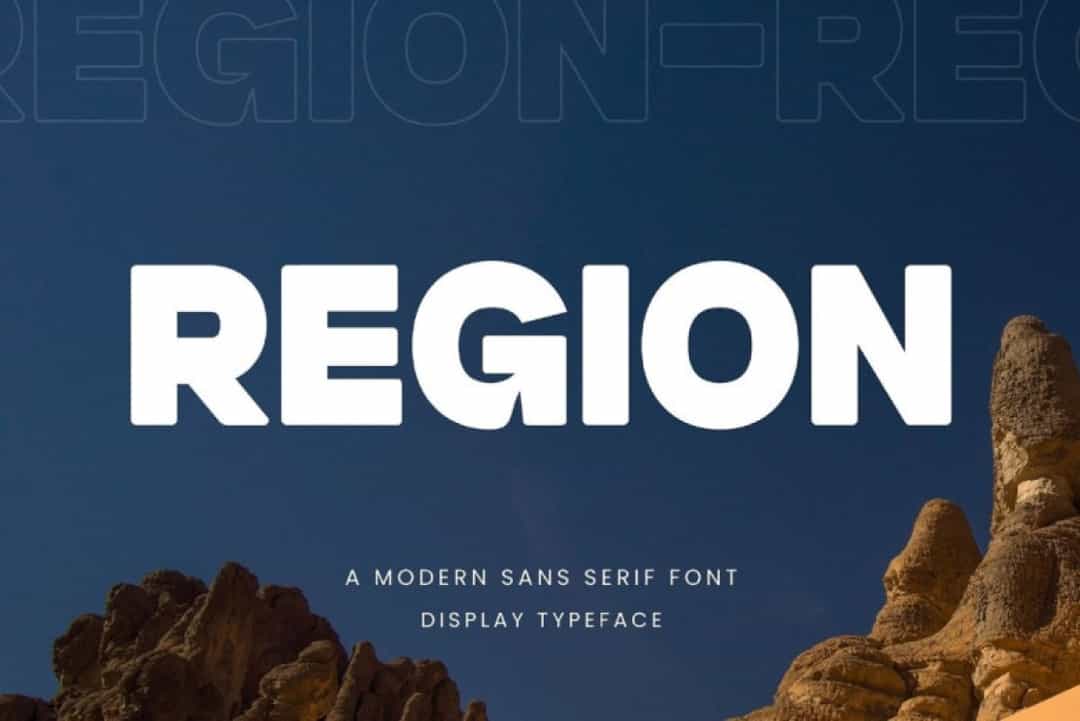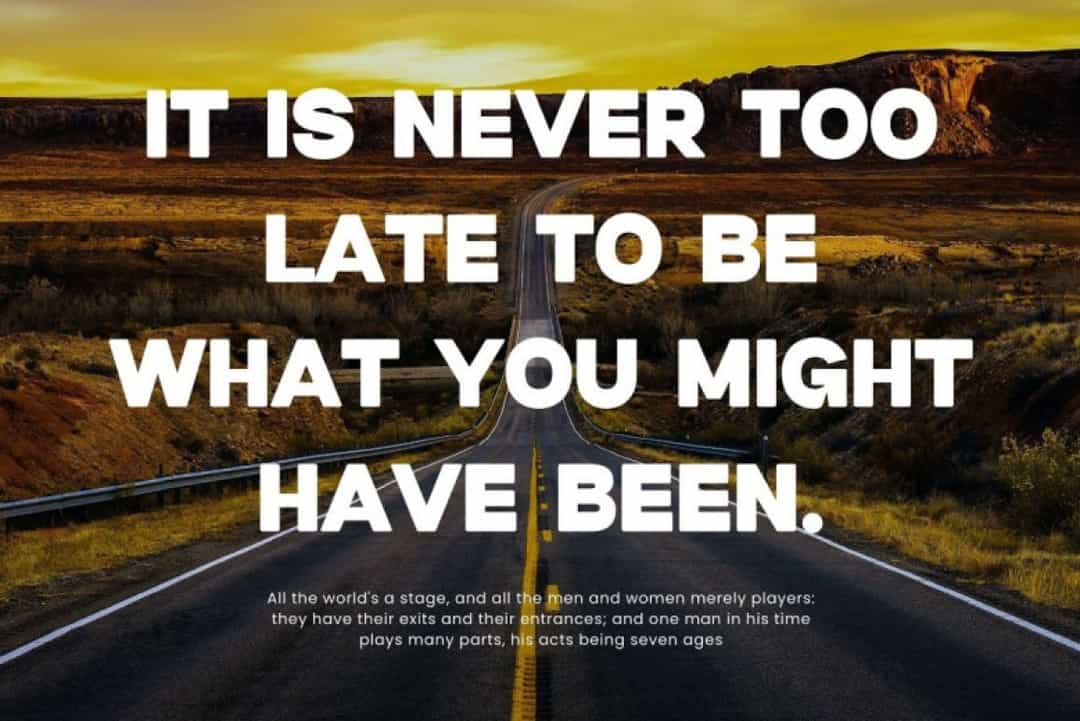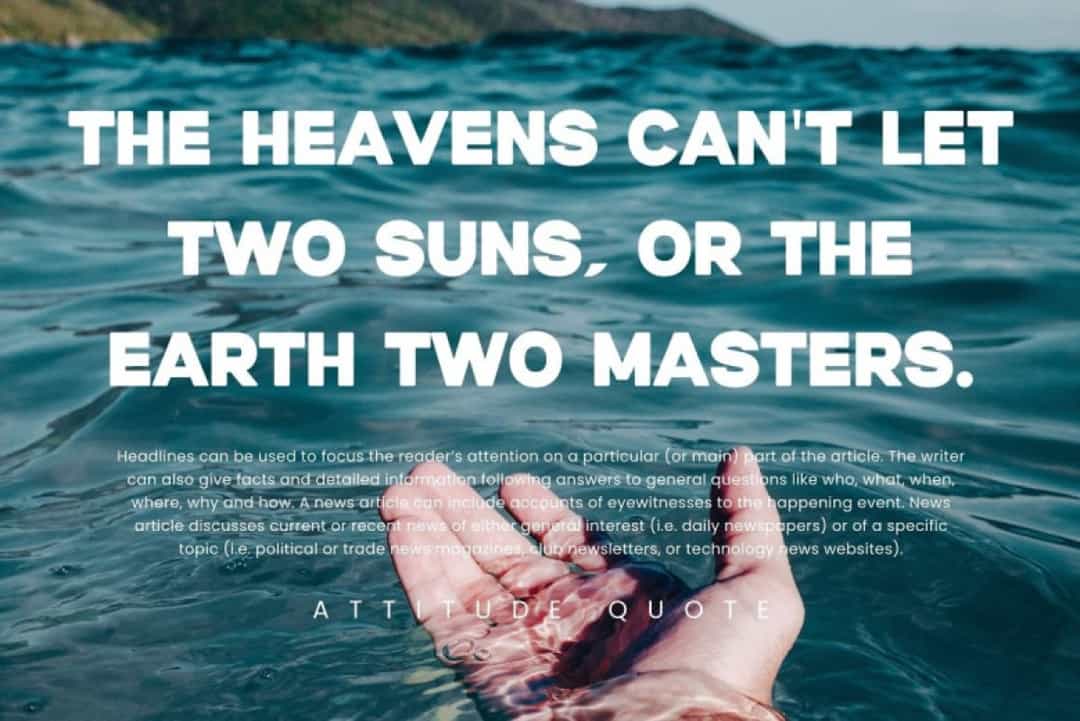
Discover Region Font, part of the Sans Serif Display collection—a versatile and unique font perfect for adding a personal touch to your projects. Download it for free and enjoy crafting designs with style, from invitations to social media posts. This font is available exclusively for personal use, giving you the freedom to create without limits. Unlock your creativity with Region Font today!
Region Modern Sans Serif Font is inspired by a popular minimalist logo and can be used for designing brochures, videos, logos, advertisements branding invitations layout designs elegant craft beauty design projects as well as more.